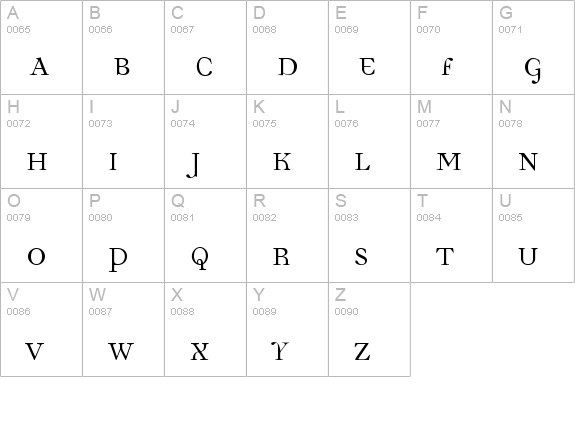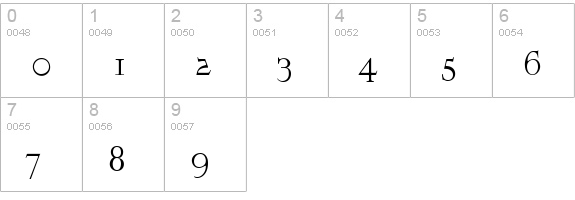
DemocraticaRegular Font Details
DemocraticaRegular is a classic and versatile font that exudes sophistication and elegance. With its clean lines and balanced proportions, this font is ideal for a wide range of design projects, from branding and advertising to editorial and web design. What sets DemocraticaRegular apart is its seamless blend of tradition and modernity, making it suitable for both formal and contemporary designs. The timeless appeal of this font ensures that it will remain a staple in your font collection for years to come. The best part? DemocraticaRegular is available for free download at FontsMarket.com, allowing you to easily incorporate this stylish font into your projects without breaking the bank. Don't miss out on the opportunity to add DemocraticaRegular to your design arsenal and elevate your creations with its timeless charm.